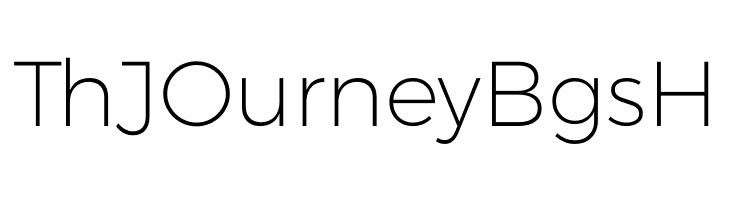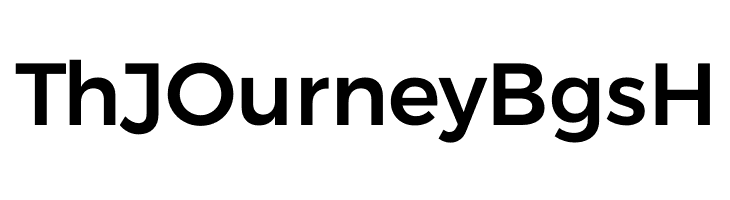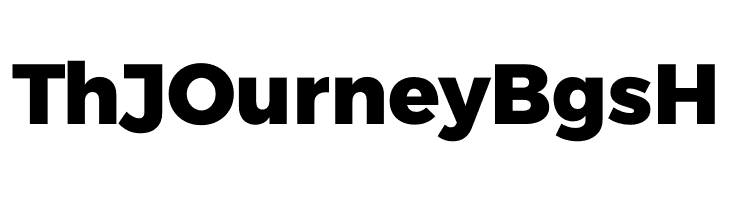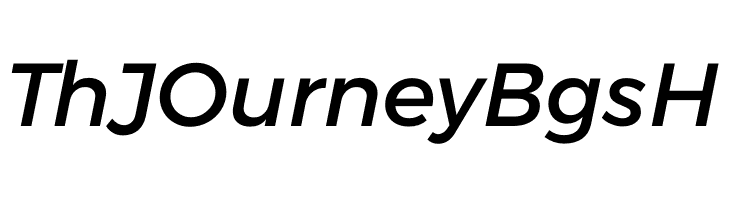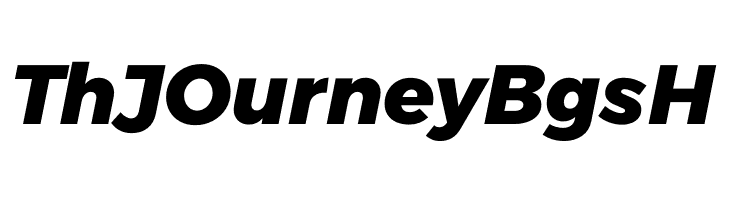
• Argentum Sans Bold Italic
A bold, italic, modern sans-serif font with a clean and dynamic style.
• Argentum Sans ExtraBold
A bold, modern sans-serif font with thick strokes and strong presence.
• Argentum Sans ExtraBold Italic
• Argentum Sans ExtraLight
A clean, modern sans-serif typeface with uniform stroke widths and balanced design.
• Argentum Sans ExtraLight Italic
A sleek, modern sans-serif font with an extra light, italic style.
• Argentum Sans Italic
A modern, italic sans-serif font with clean lines and balanced spacing.
• Argentum Sans Light
A modern, light sans-serif font with clean lines and excellent readability.
• Argentum Sans Light Italic
A modern, light, italic sans-serif font with clean lines and low contrast.
• Argentum Sans Medium
A modern, geometric sans-serif font with balanced proportions and clear numerals.
• Argentum Sans Medium Italic
A modern, medium-weight sans-serif italic font with clean lines and a slightly condensed form.